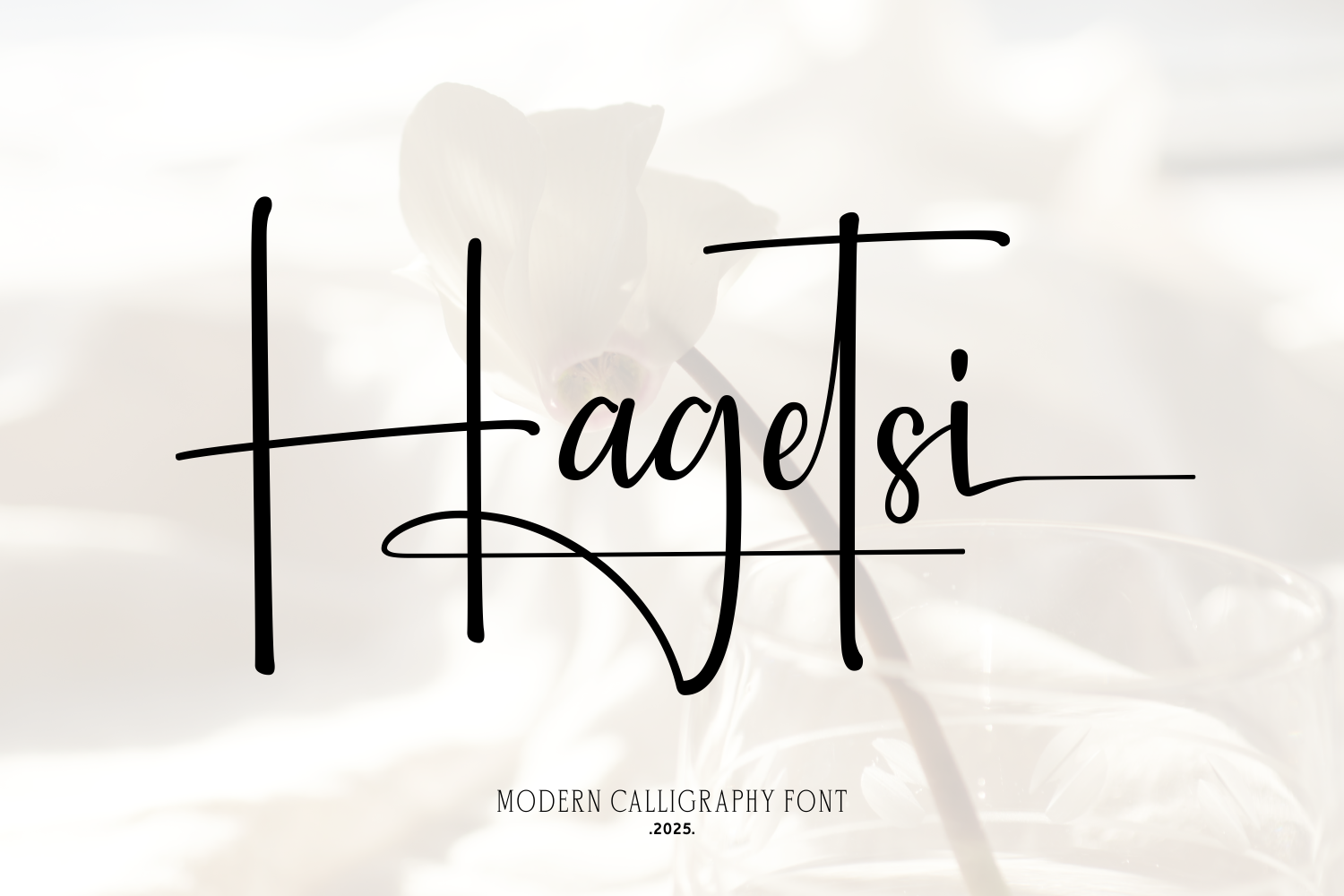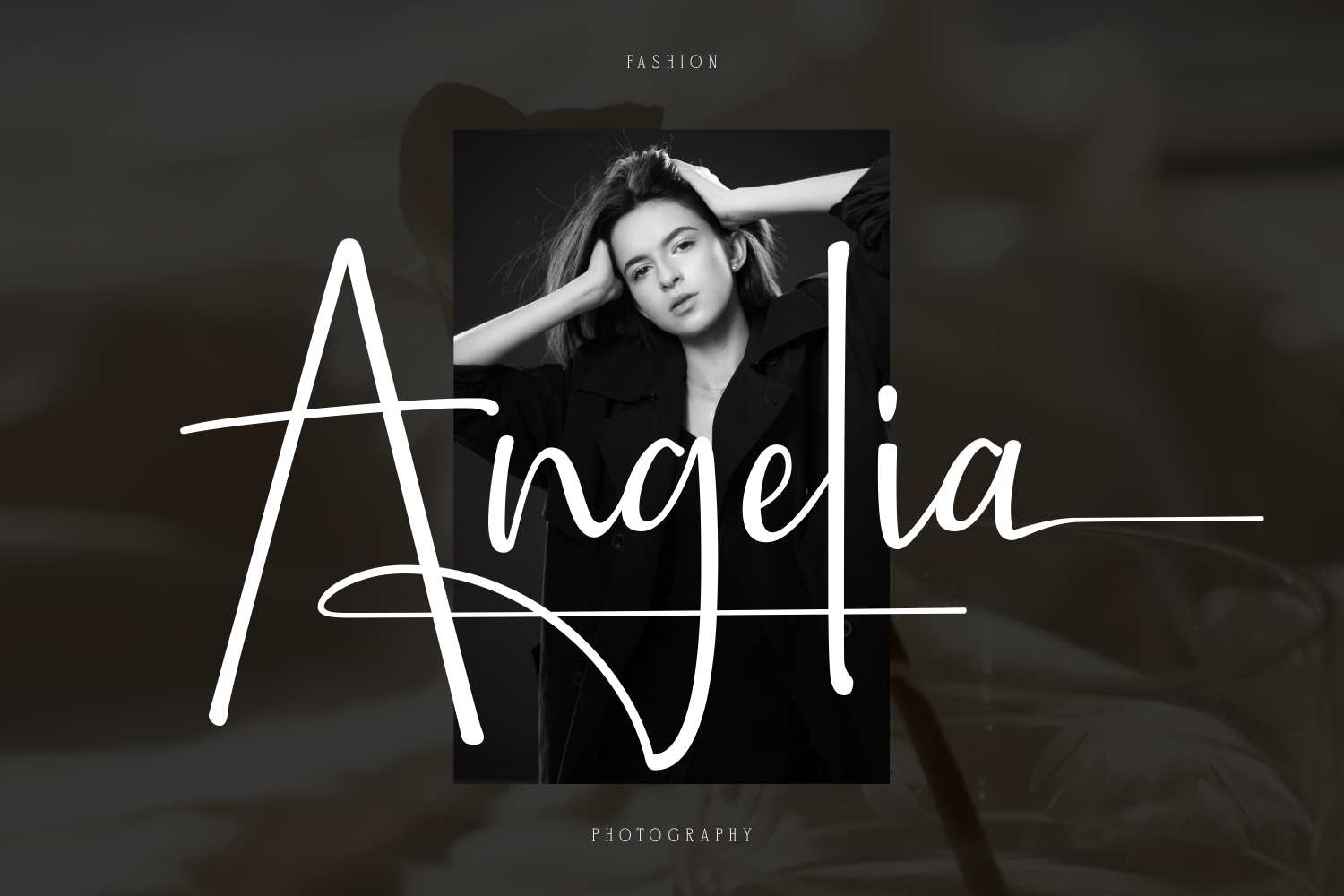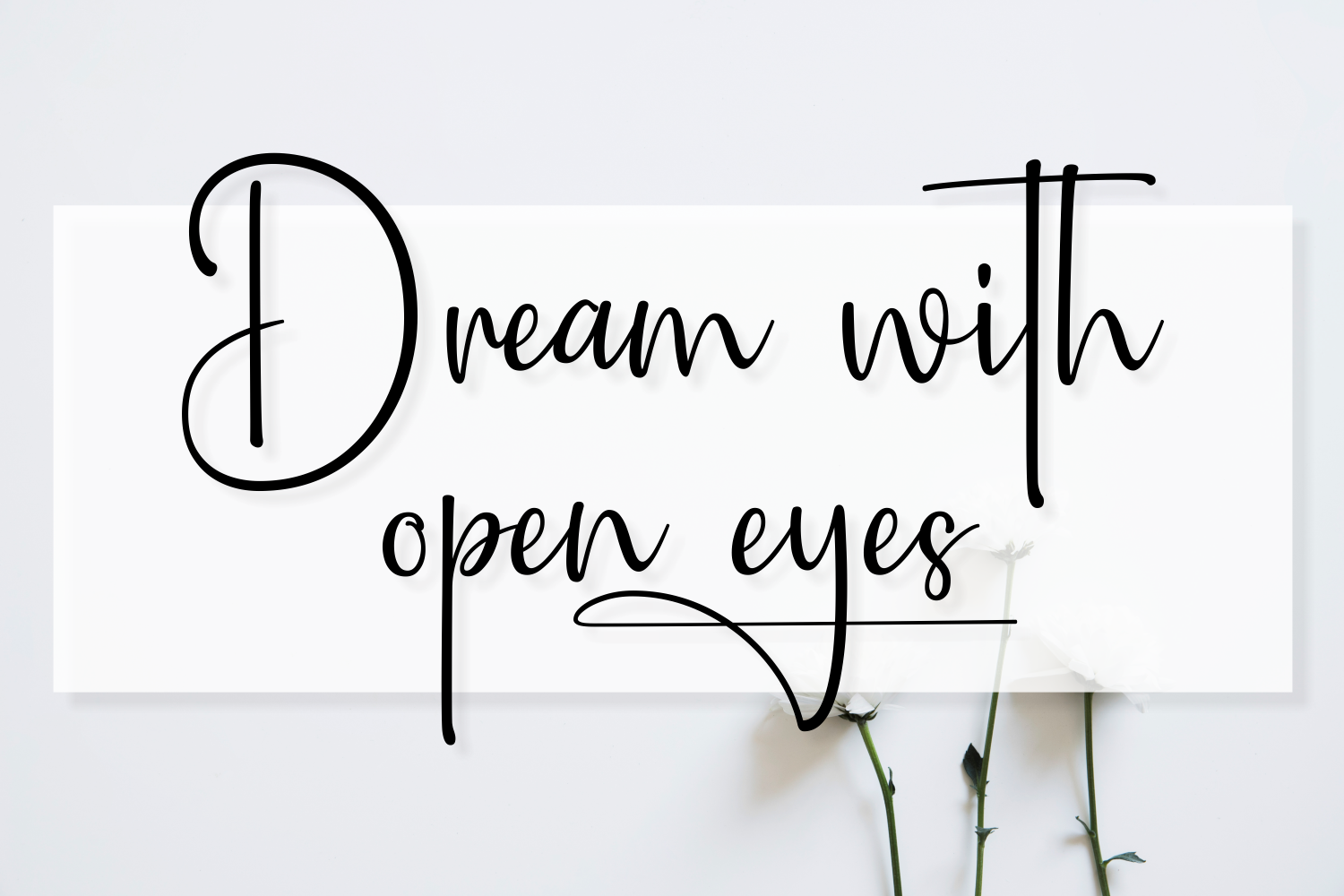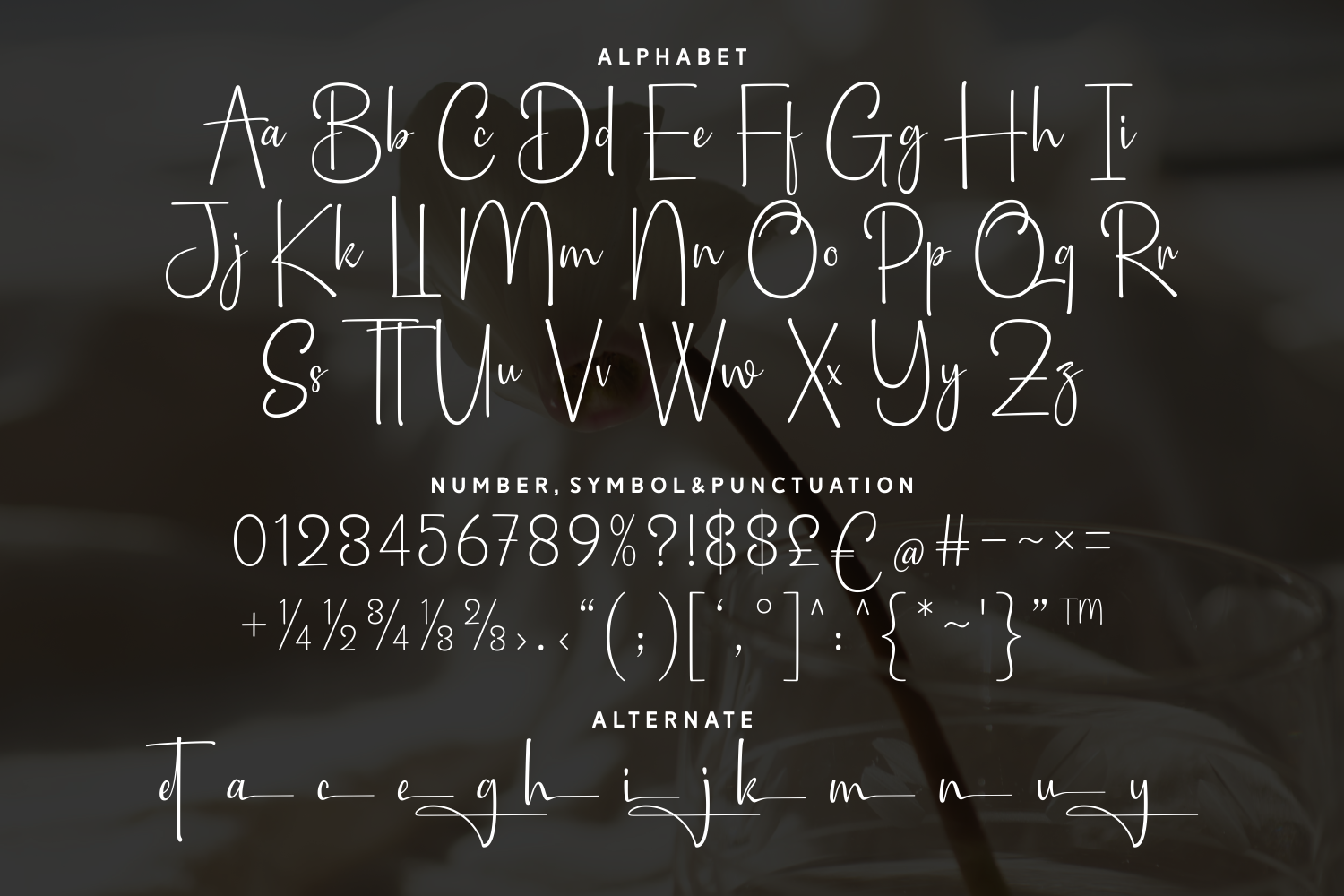
Hagetsi is a modern calligraphy font that blends sharp minimalism with graceful sophistication. Featuring tall, elegant letterforms and refined swashes, it creates a bold statement in a delicate way. Perfect for fashion branding, high-end product packaging, and stylish invitations, Hagetsi exudes modern luxury and confidence.